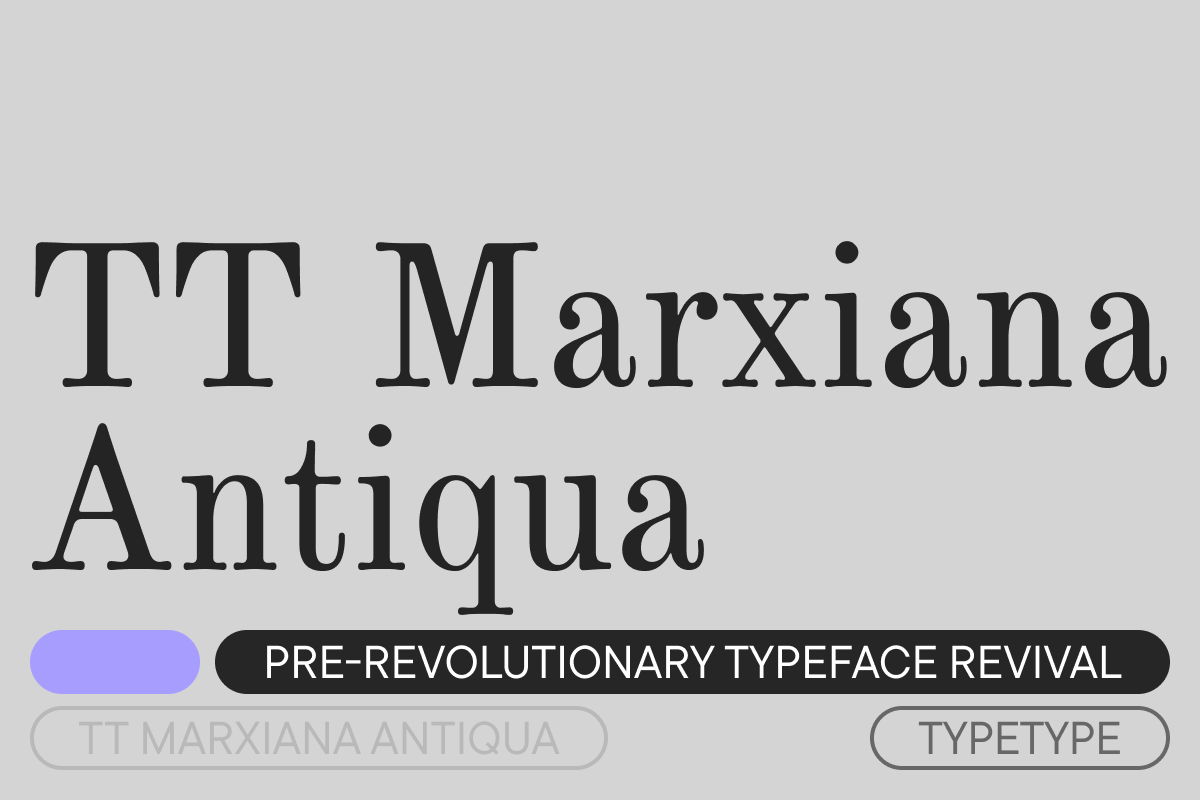
TT Marxiana Antiqua
TT Marxiana is a project to reconstruct pre-revolutionary fonts used in the 1887 layout of Niva magazine, published by A.F. Marx in St. Petersburg. The focus is on reviving a specific font set from that edition. TT Marxiana Antiqua is a scotch style serif that carefully preserves printing artifacts of the time—such as dot gain, subtle letter deformation, and other visual nuances—bringing historical authenticity and character into modern digital typography.